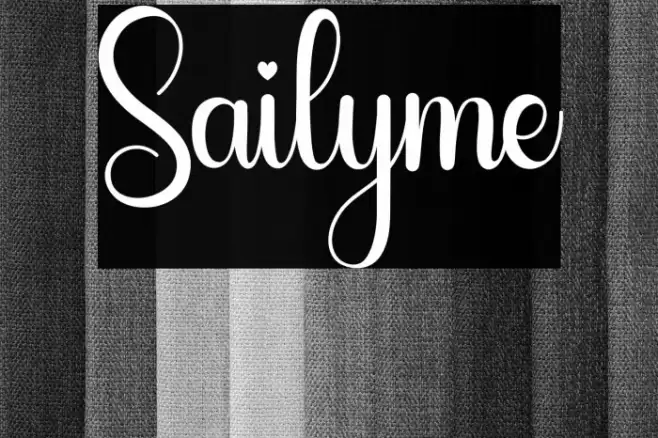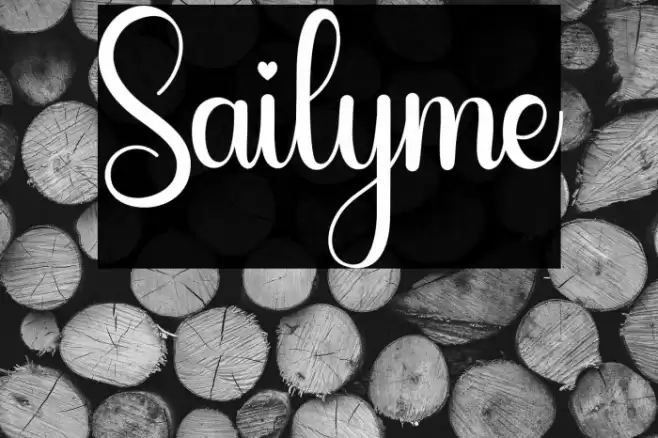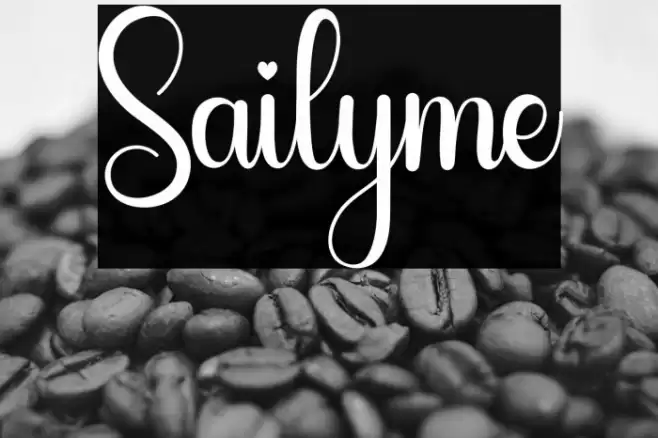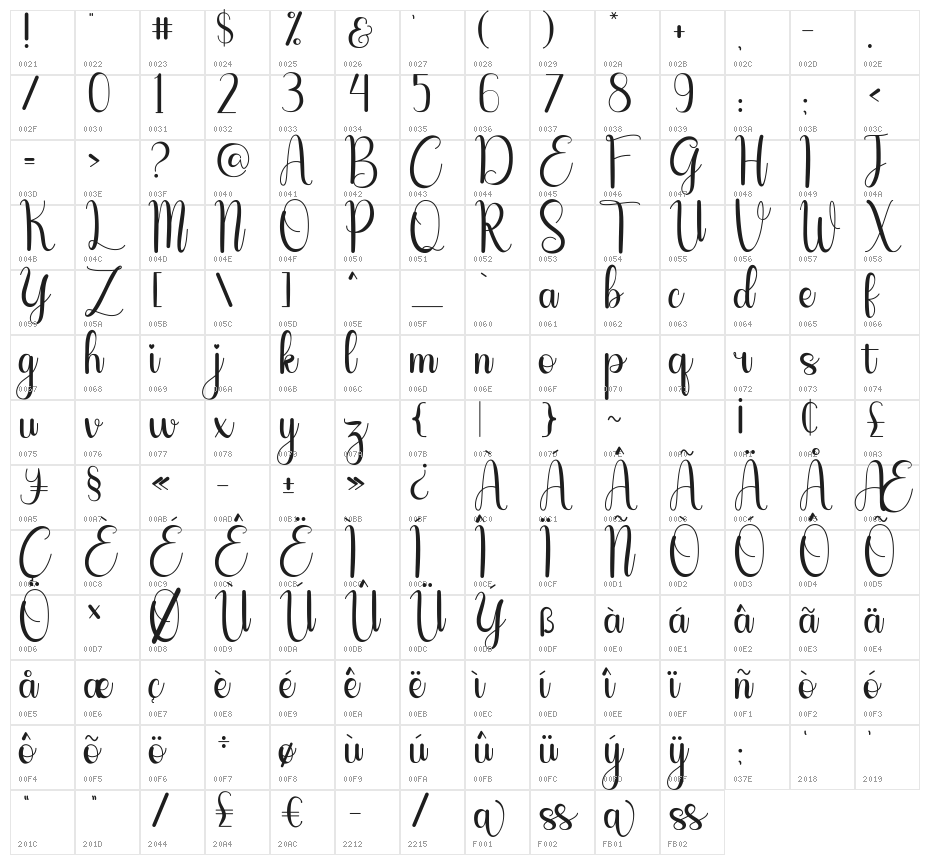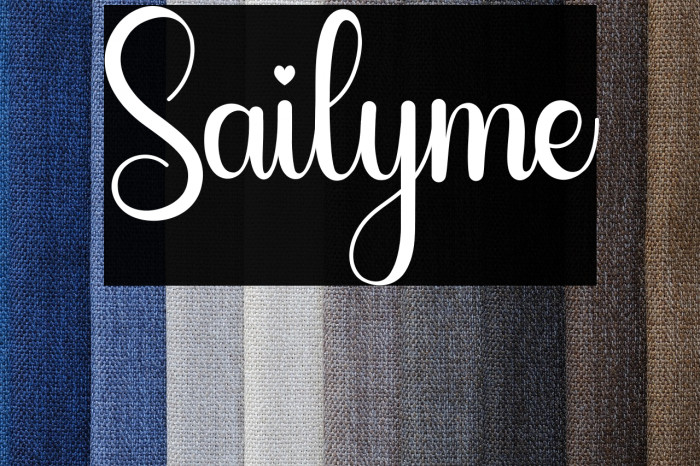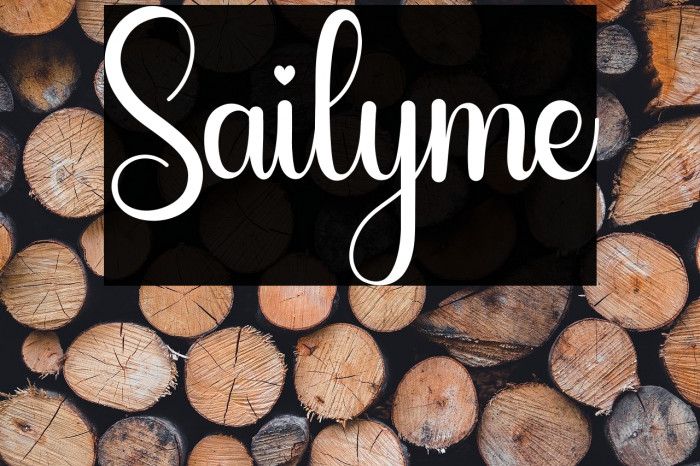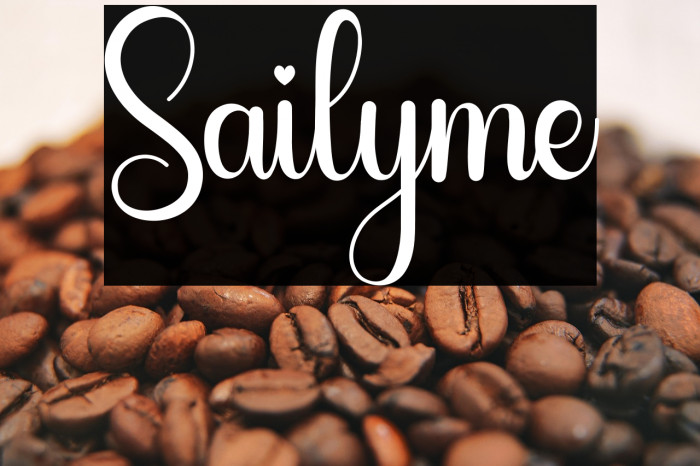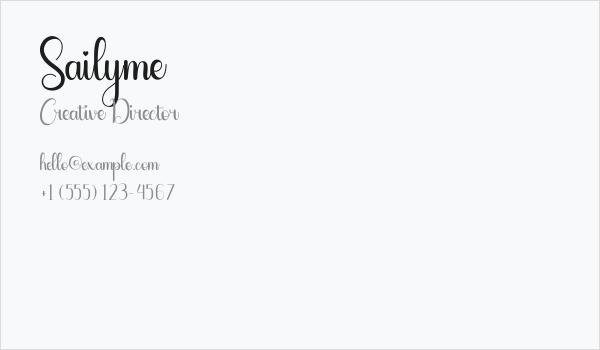
Sailyme Font
Sailyme Description
This font features a playful and elegant script style with a handwritten touch. The uppercase letters are characterized by their flowing, interconnected strokes, giving a sense of movement and fluidity. The lowercase letters maintain a similar style, with some letters featuring unique loops and swirls that add to the font's charm. The numerals are clean and straightforward, complementing the overall design. Special characters are designed with the same attention to detail, ensuring consistency across all glyphs. This font is perfect for projects that require a personal, artistic touch.
A playful and elegant script font with a handwritten style from Regular fonts.